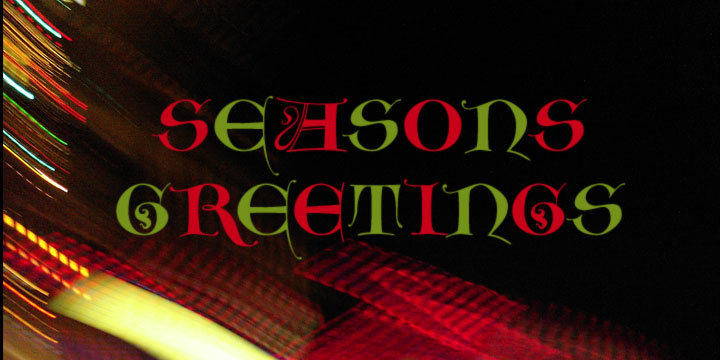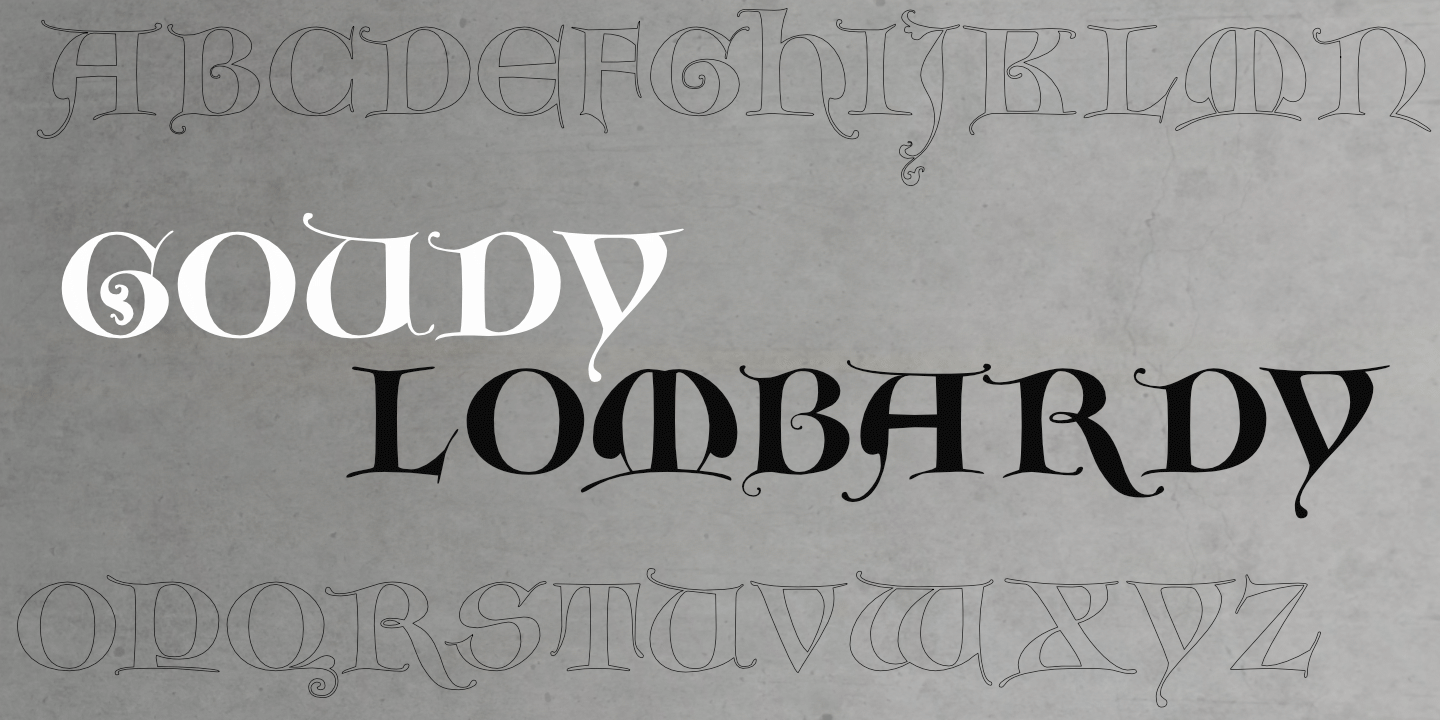
Goudy Lombardy
Goudy Lombardy CT is based on drawings of Medieval versals (capitals used at beginning of verses in manuscripts) by the great American type designer, Frederic W. Goudy. Works beautifully as initials with Goudy Text CT. Uppercase only, no numerals or punctuation; several letters have alternates. Framed, inversed caps are also included which can be used as drop caps. Click on the Glyph Chart link at right to view all glyphs for this font.